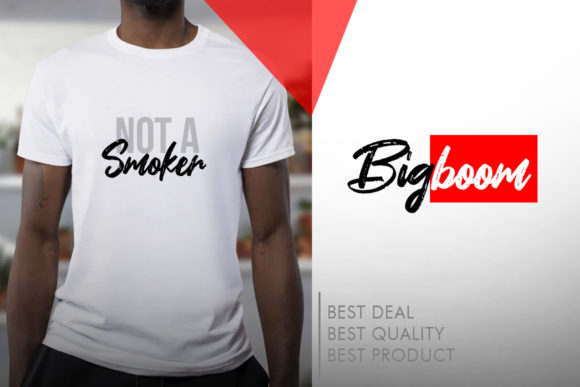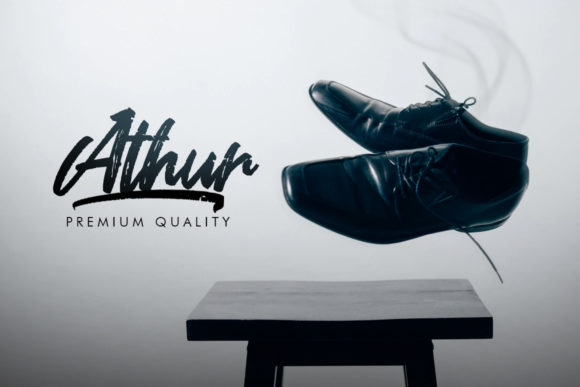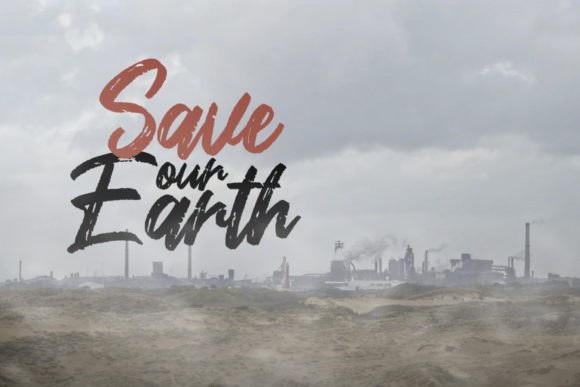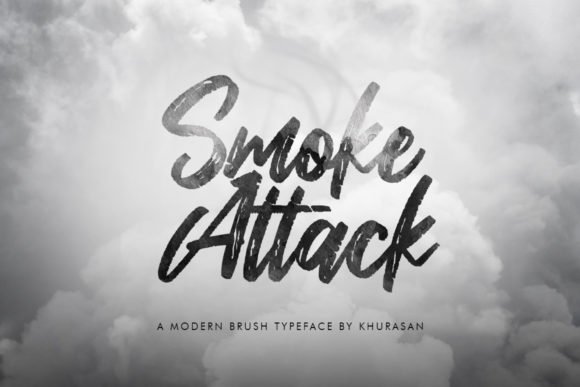
Introduction to Smoke Attack Font
Smoke Attack is a fresh handwritten brush font with an elegant and vintage feel.
It will add a retro touch to any design project .